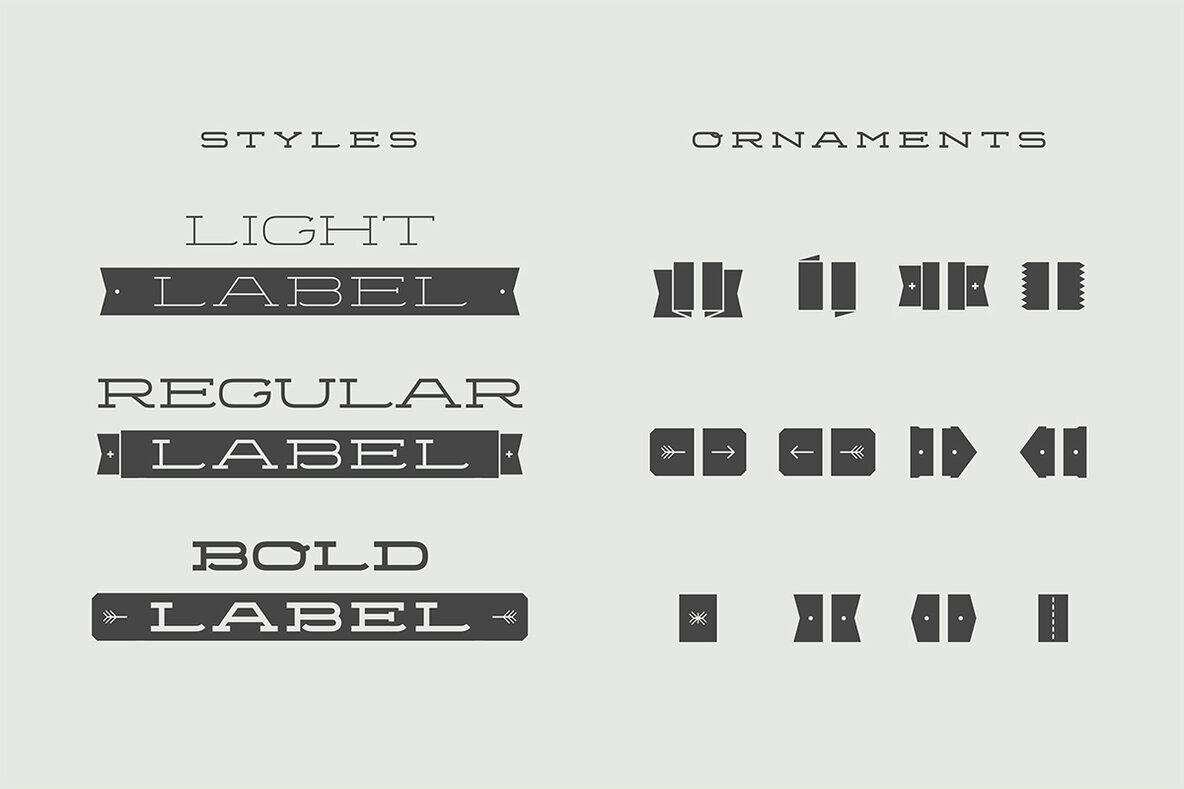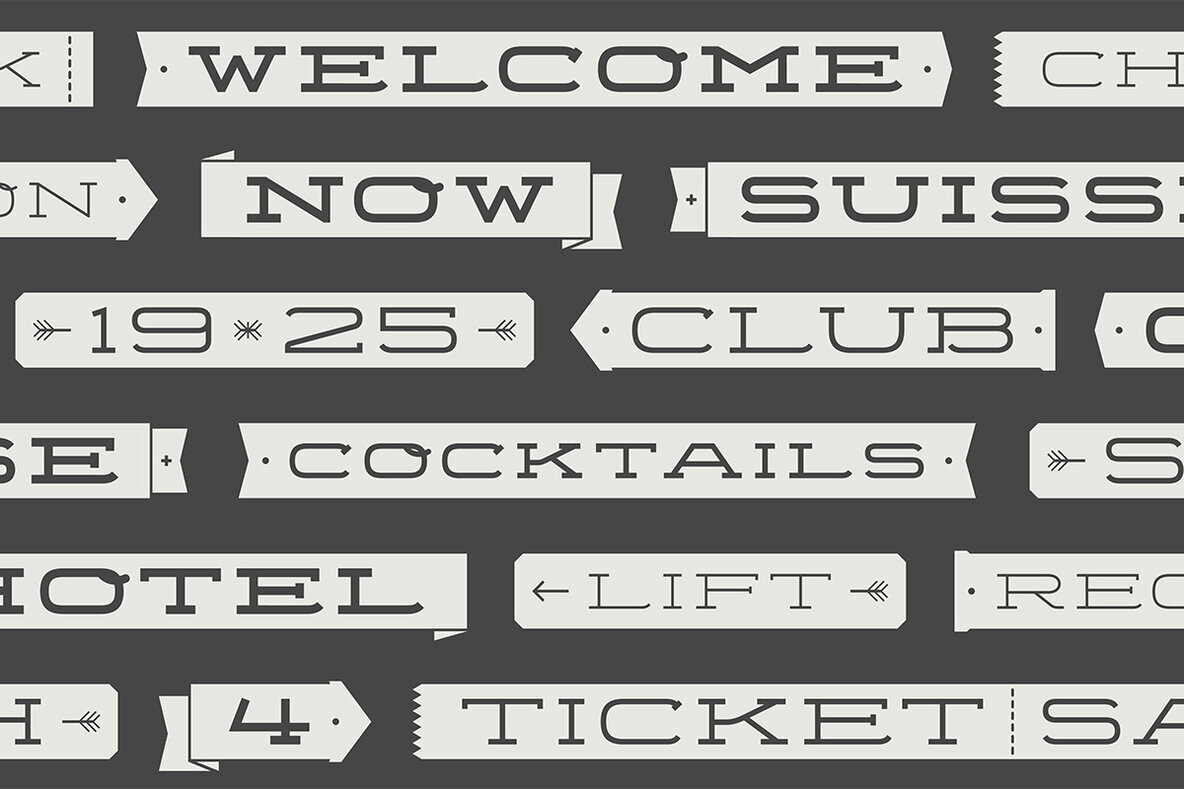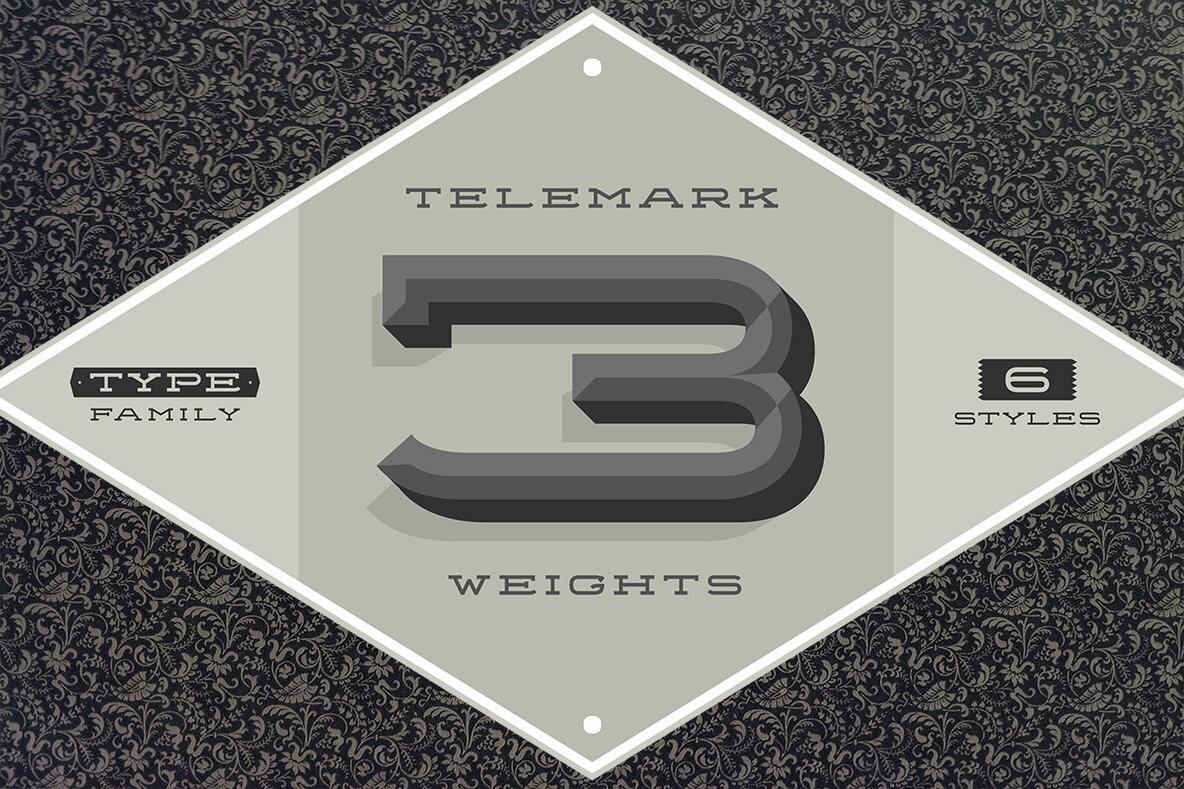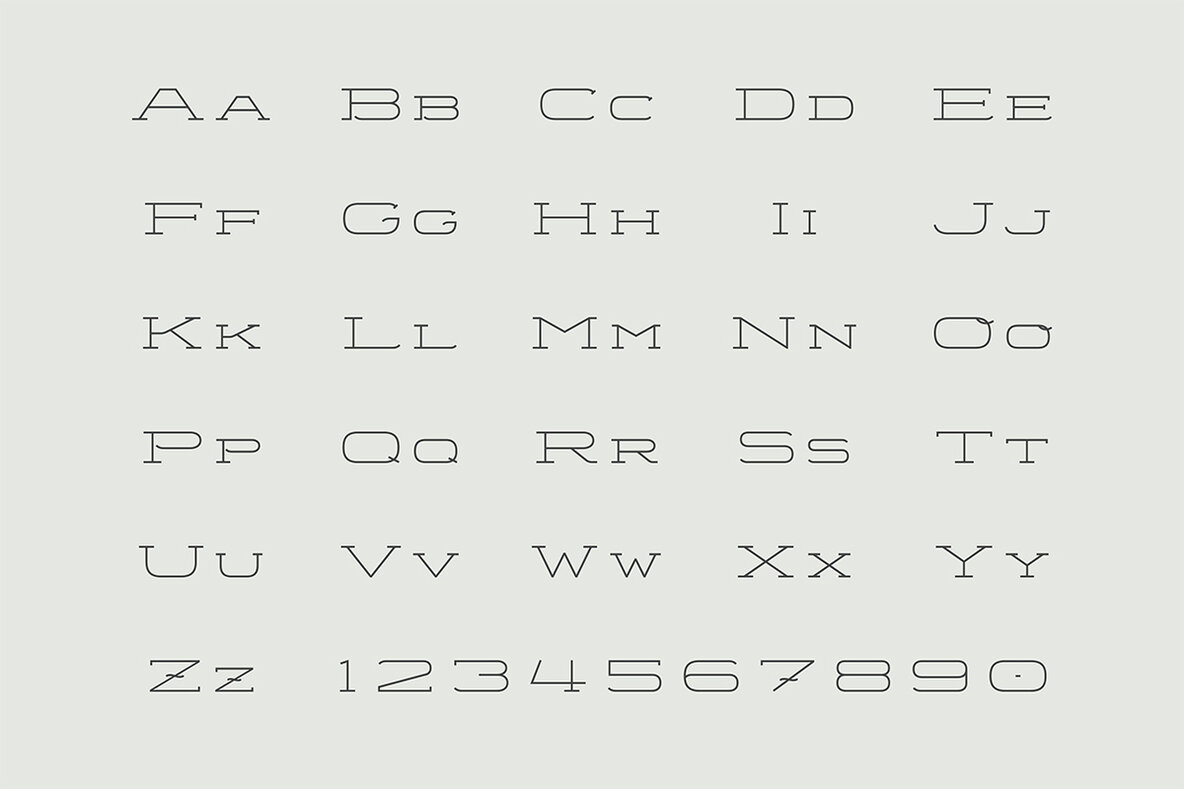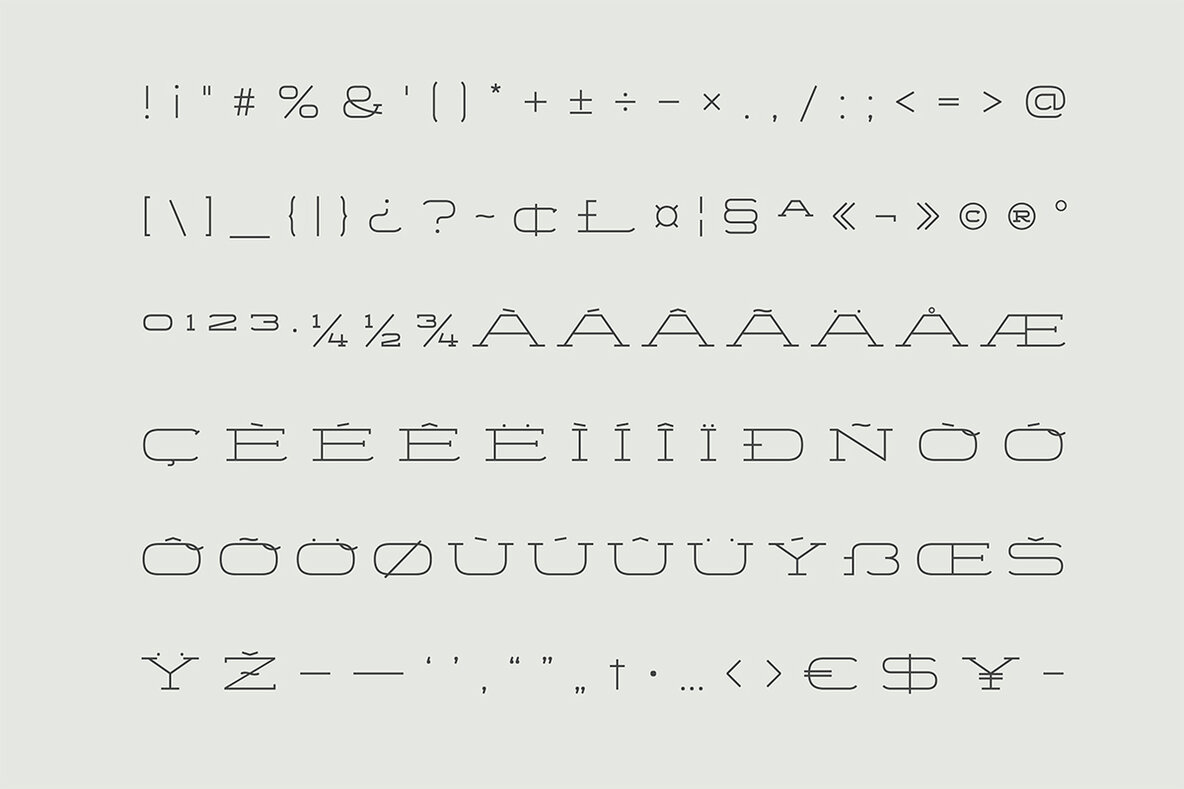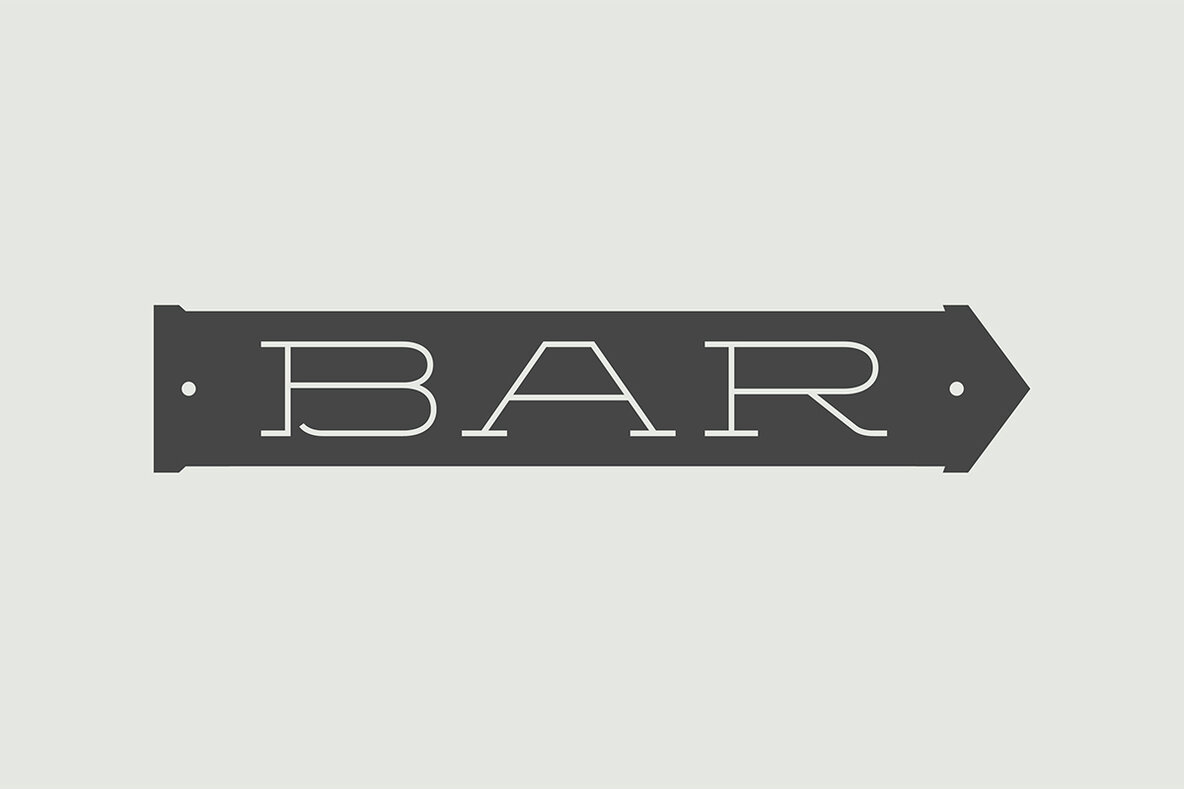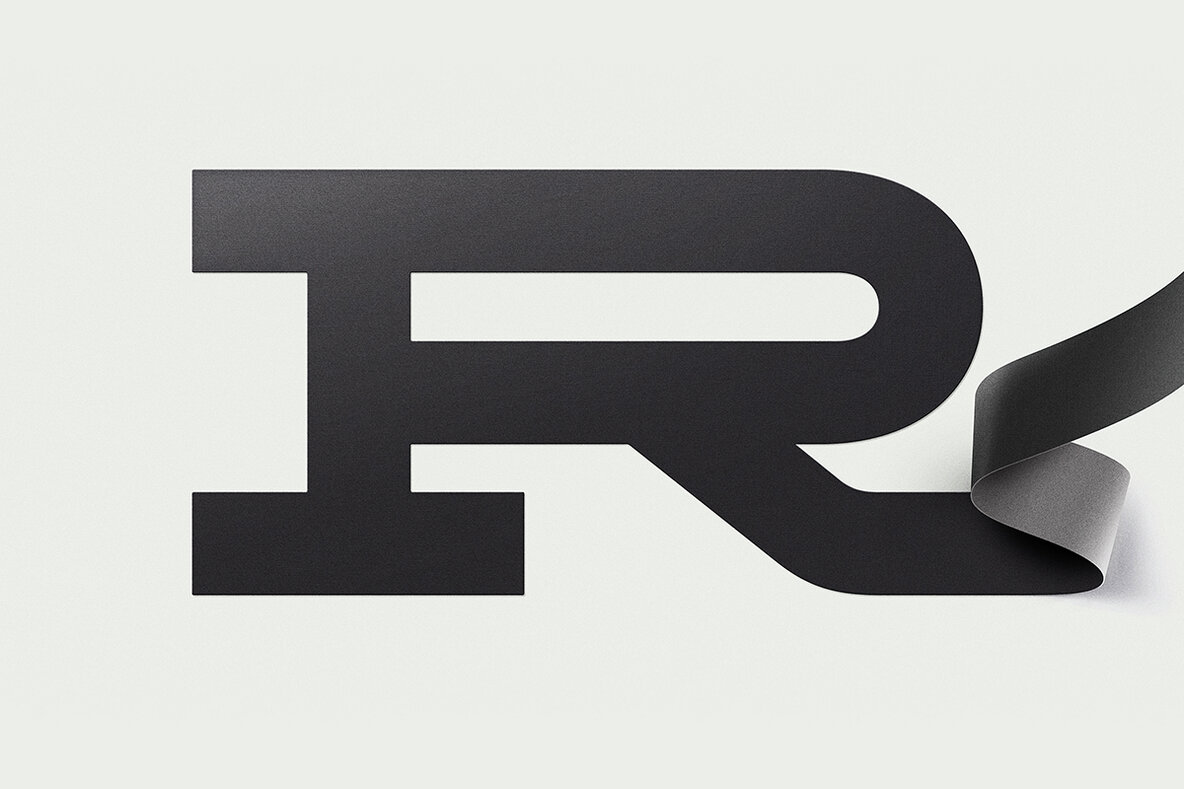
Telemark is a monolinear slab serif influenced by the wide serif typefaces of the 19th century. The name refers to the vintage form of skiing which was introduced in Norway at the same period of time and allowed more fluid turns.
Telemark is a monolinear slab serif influenced by the wide serif typefaces of the 19th century. The name refers to the vintage form of skiing which was introduced in Norway at the same period of time and allowed more fluid turns. After the Telemark style was replaced by newer techniques in the Alpine countries it has experienced a rise in popularity in recent years. The Telemark type family features the three weights in an additional label style which allows an uncomplicated creation of editable pointers, banners and cartouches. Different combinations of endpieces result in a great variety of designs. Telemark is suitable for headlines and logotypes and complements script typefaces as well as any neutral grotesque. Details include 207 characters in three weights, a total of six styles and manually edited kerning.